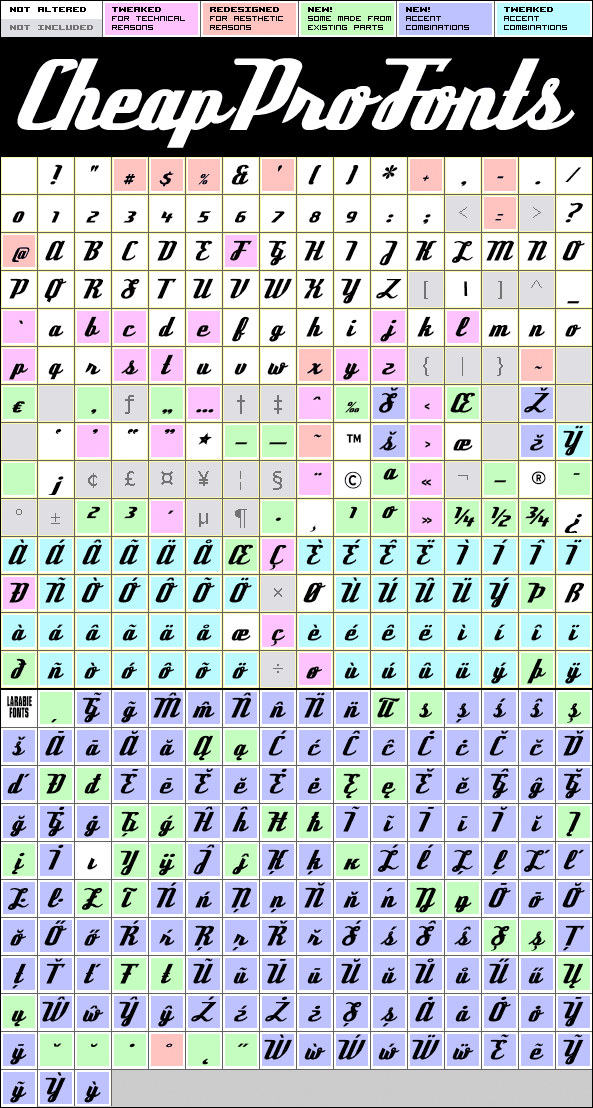
Deftone Stylus Pro
Deftone Stylus Pro by Ray Larabie
Ray Larabie
OpenType features
Contextual Alternates
A nice 50s/retro script :) I have made a new "x" and modified the spacing so that it all connects beautifully - I have even made an alternate "s" for that awkward "os" combination!
Ray Larabie says: «A structured script inspired by the Harley Davidson® logo, Raybestos® and other motor-related scripts.»
Deftone Stylus Pro is a professionally reworked font that contains an extended character set for setting text in 65 languages requiring more than the basic A-Z!